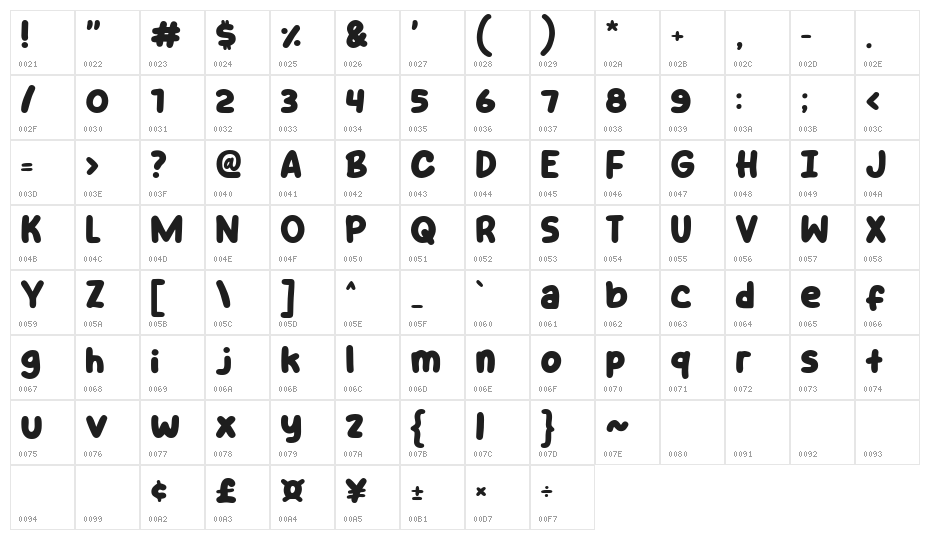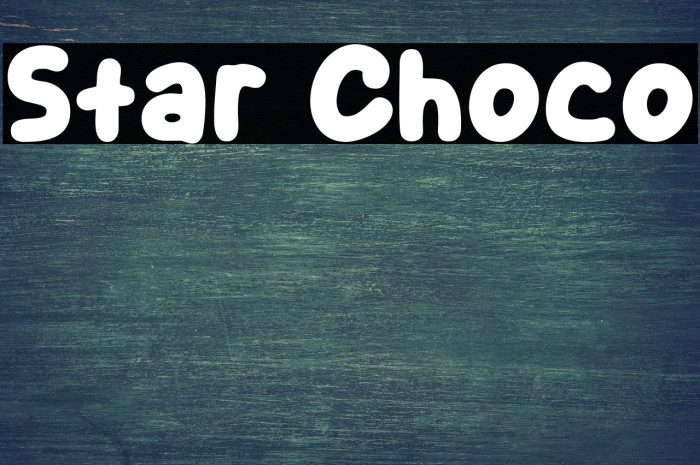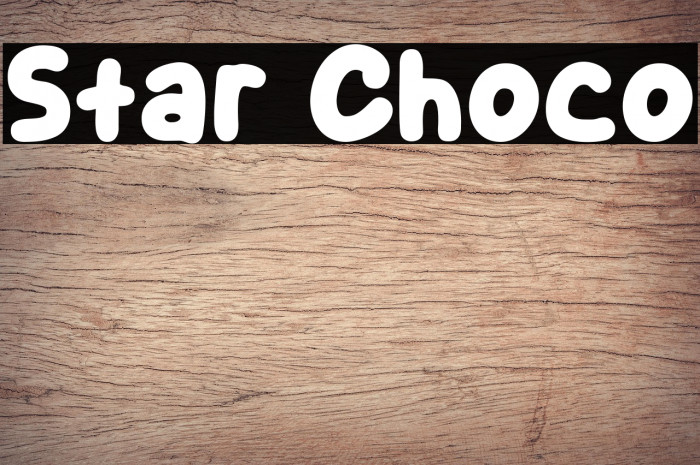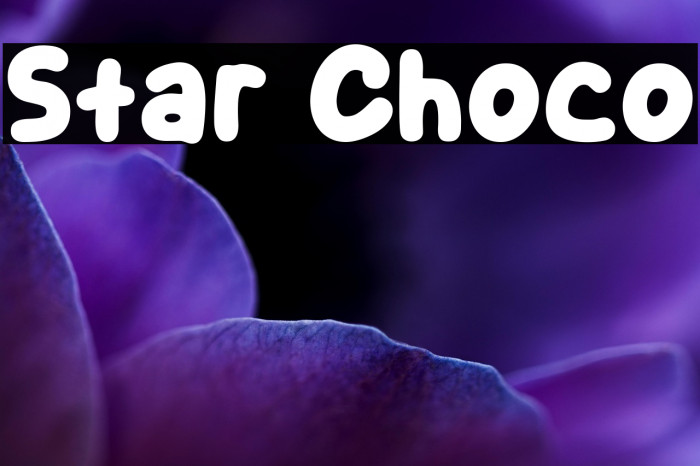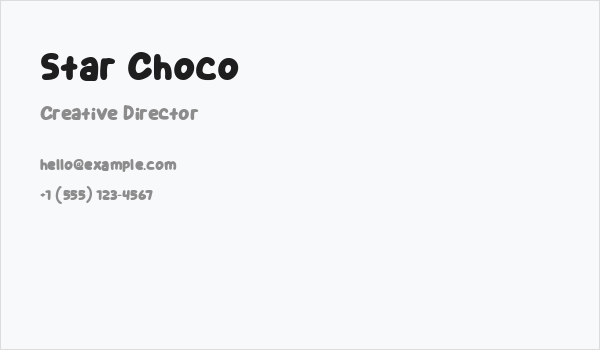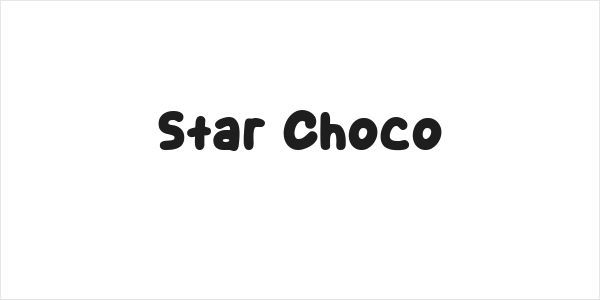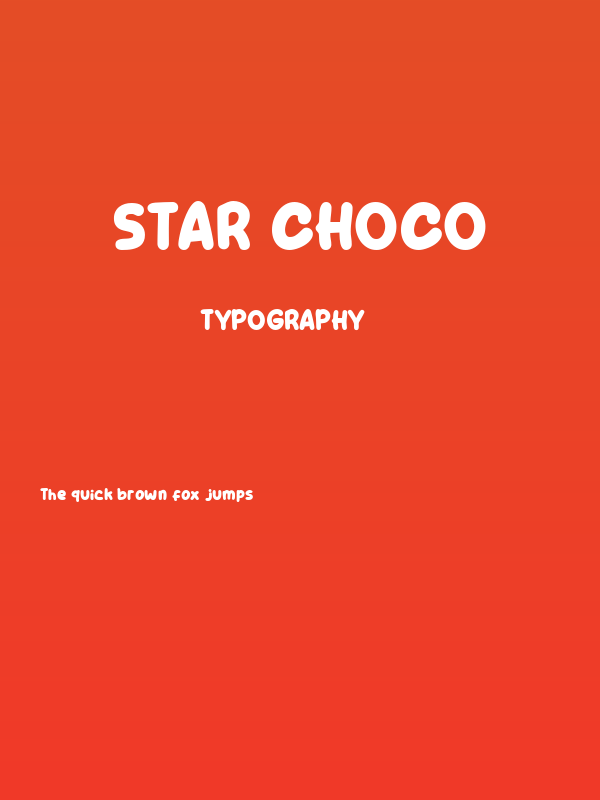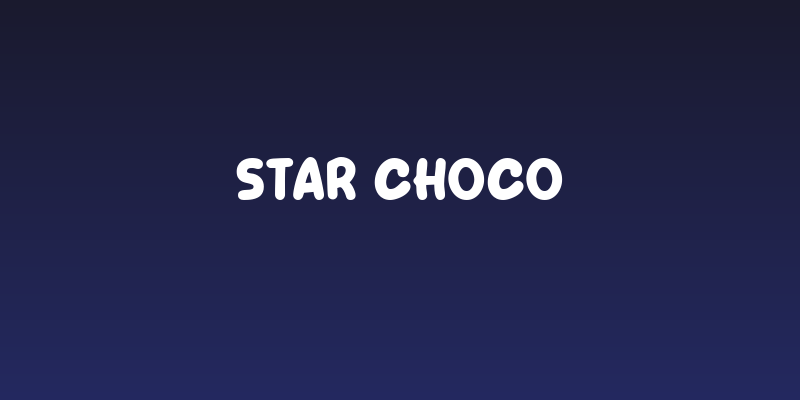
Star Choco Font
Star Choco Description
This playful and bold font features rounded, bubbly characters that exude a sense of fun and whimsy. The letters are thick and have a uniform stroke width, giving them a strong presence on the page. The overall appearance is reminiscent of hand-drawn or cartoon-style lettering, making it ideal for projects that require a touch of humor or lightheartedness. The font includes both uppercase and lowercase letters, numbers, and a variety of special characters, ensuring versatility in its application. Its friendly and approachable style makes it suitable for children's books, playful branding, or any design that aims to convey joy and creativity.
| Overall Style | Playful, Whimsical |
| Proposed Projects | Children's books, playful branding, party invitations, cartoon graphics, and creative posters. |